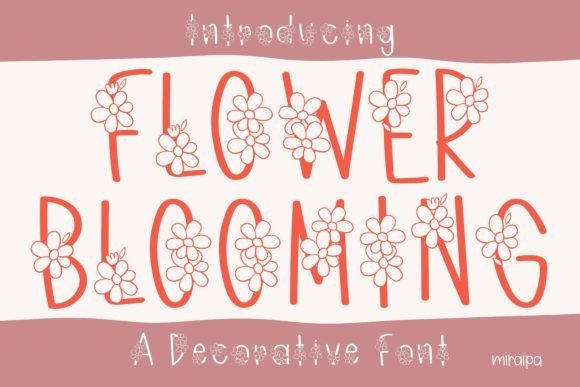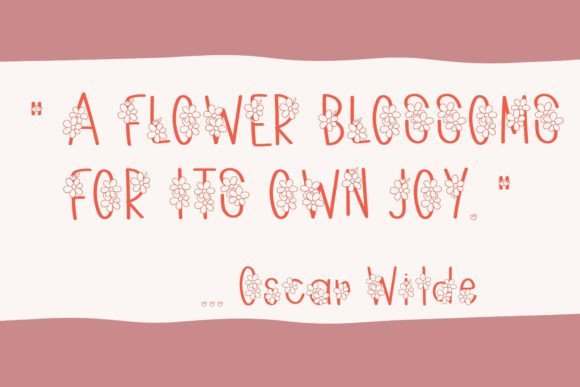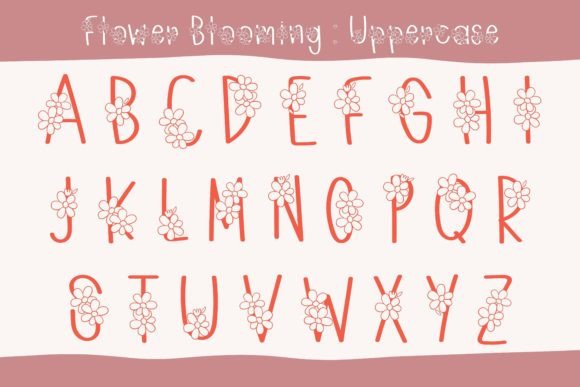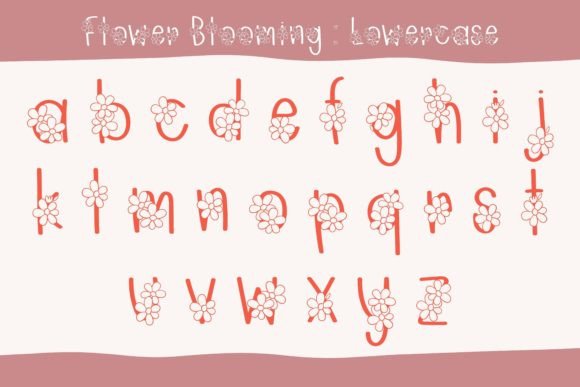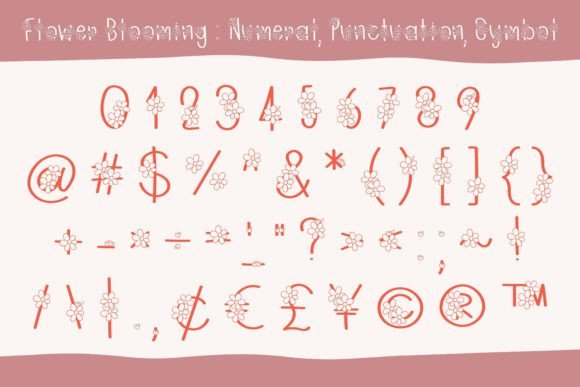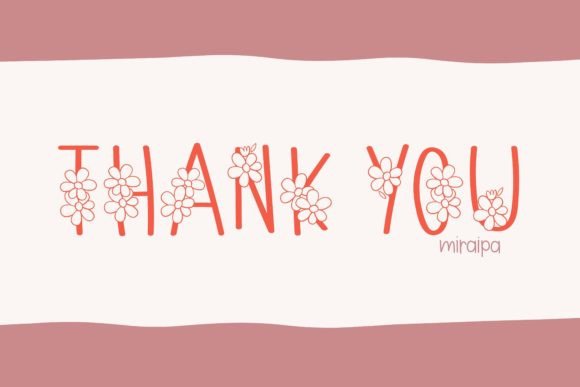
Unlock the Magic of Flower Blooming Font
Have you ever sat at your desk, staring at a blank canvas, and suddenly, a burst of creativity hits you? It’s as if the world has come alive, and the ideas start flowing like a never-ending river. For designers, those moments are the most precious – a chance to bring their imagination to life. And what better way to capture that essence than with the delightful Flower Blooming Font?
This charming font is designed to add a touch of whimsy and playfulness to your designs. With its cute and lovely style, it’s perfect for projects that need a floral, joyful vibe. Whether you’re creating a wedding invitation, a children’s book, or a social media campaign, the Flower Blooming Font is sure to make your work stand out.
- Unique Characteristics: The font features a unique, hand-drawn design with intricate floral patterns and subtle texture, adding a touch of elegance and sophistication to any design project.
Flower Blooming Font Review
Overall, I’m quite impressed with the “Flower Blooming Font” and here’s what I love about it:
- ✨ Unique and playful design: The font has a whimsical touch that adds a fun twist to any text. It’s perfect for spring-themed designs, nursery decorations, or kids’ parties.
- ✨ High-resolution images: The font includes high-resolution images of blooming flowers that add a nice texture and depth to the design.
- ✨ Easy to customize: The font is easily scalable and can be customized to fit any design need.
However, I did encounter a few limitations:
- ⚠️ Limited font styles: The font only includes a few styles, which might limit its versatility for more complex designs.
- ⚠️ Font size limitations: The font might not be suitable for very large or very small text sizes, as the images may become distorted.
- ⚠️ Compatibility issues: Some users reported compatibility issues with certain operating systems or software, so be sure to test it thoroughly before use.
Overall, I’d give the “Flower Blooming Font” 4 out of 5 stars. It’s a beautiful and unique font that’s perfect for spring-themed designs, but it’s not without its limitations. With a little creativity and experimentation, you can create stunning designs that showcase this lovely font.
Use the Flower Blooming Font to add a touch of elegance and whimsy to your designs.
Combine it with other floral elements to create a cohesive look.
The Flower Blooming Font is perfect for:
Floral-themed websites and social media graphics
Branding and marketing materials for flower shops and gardens